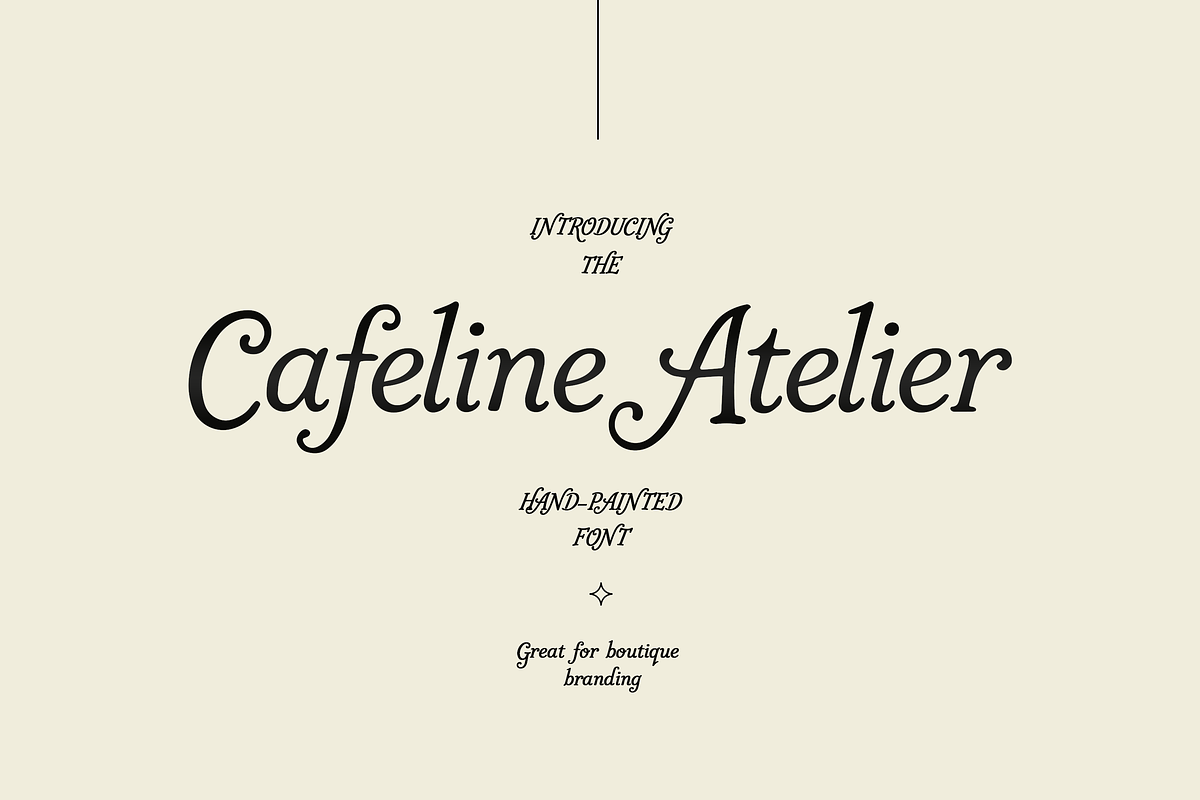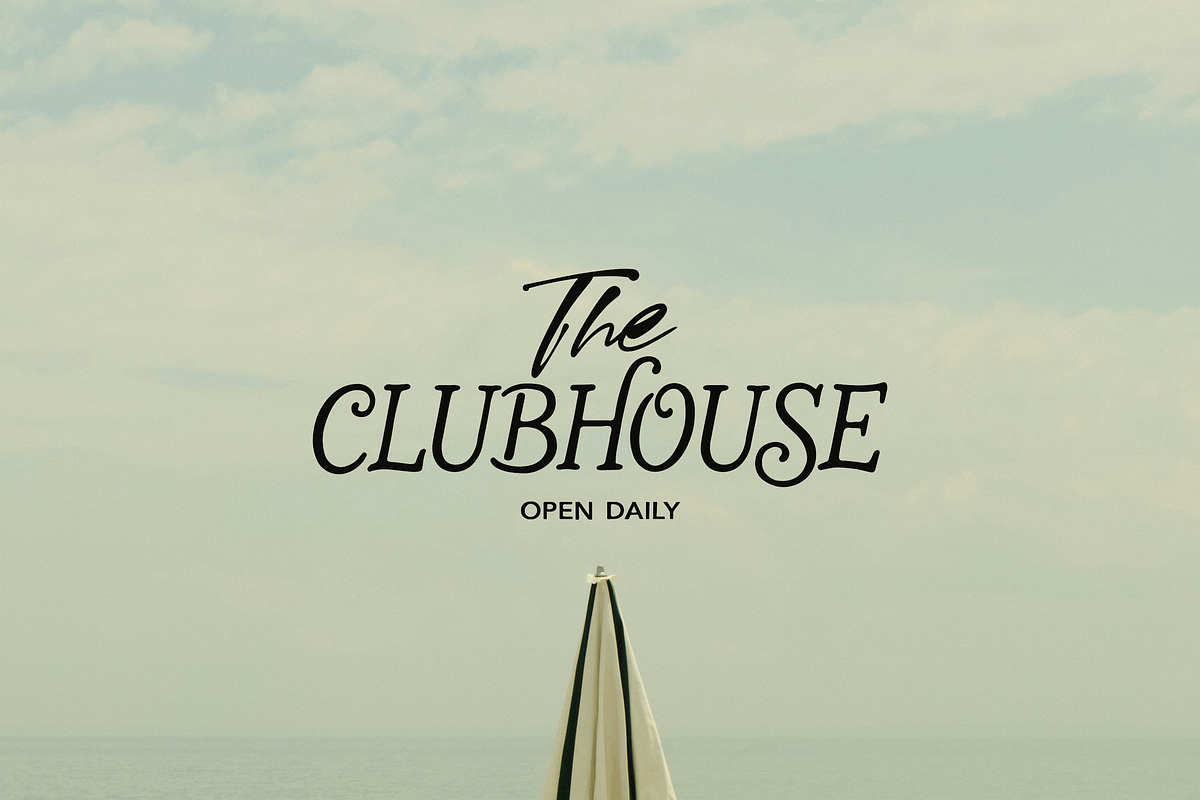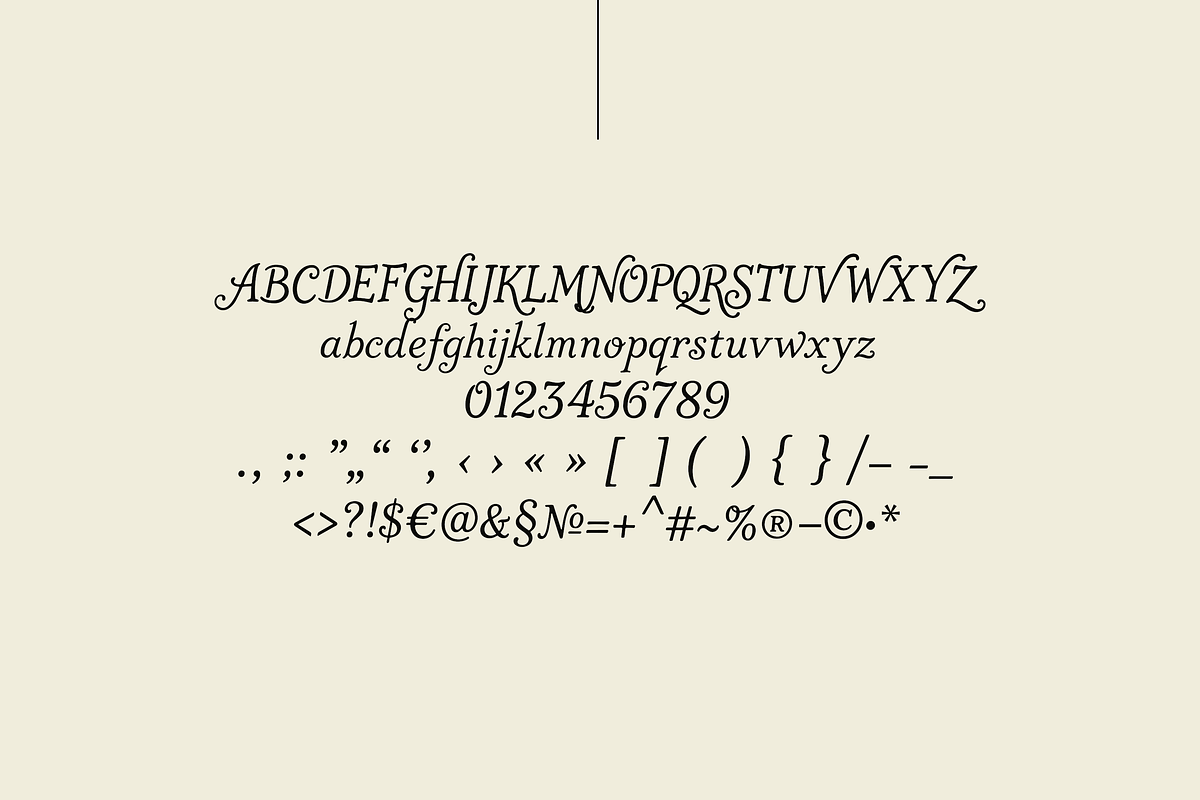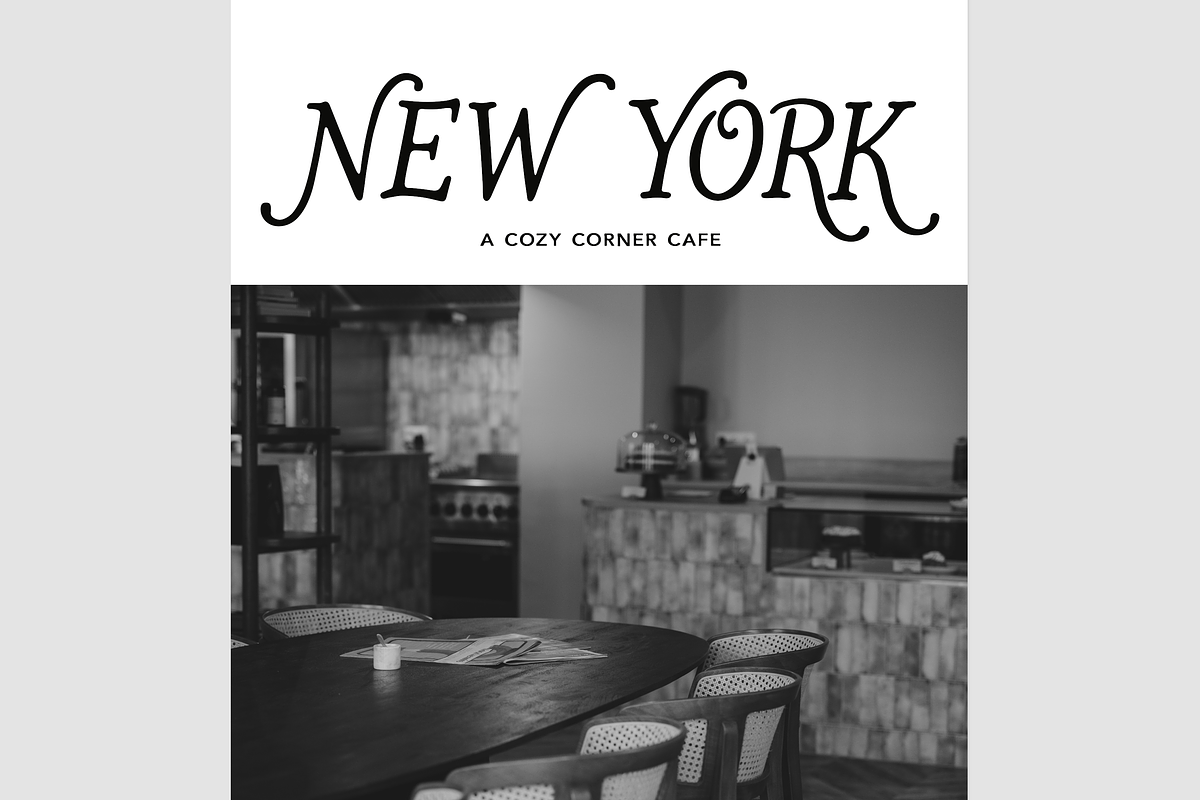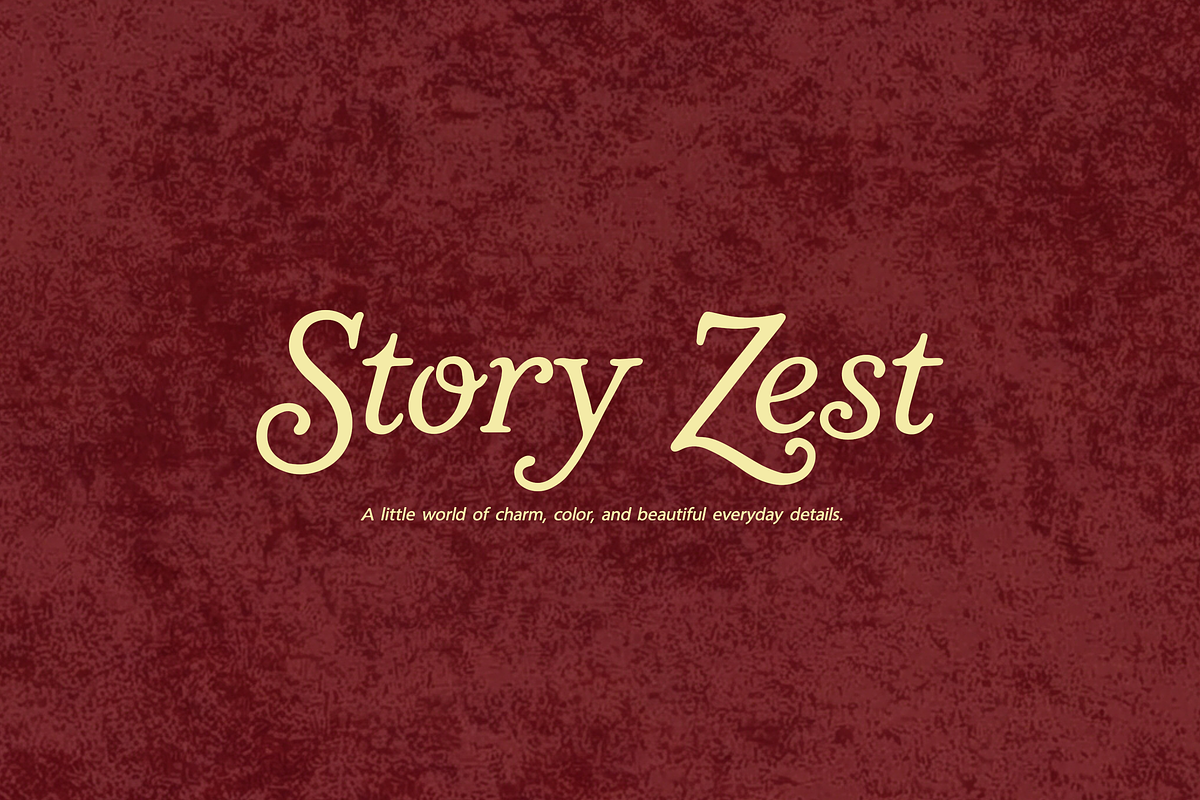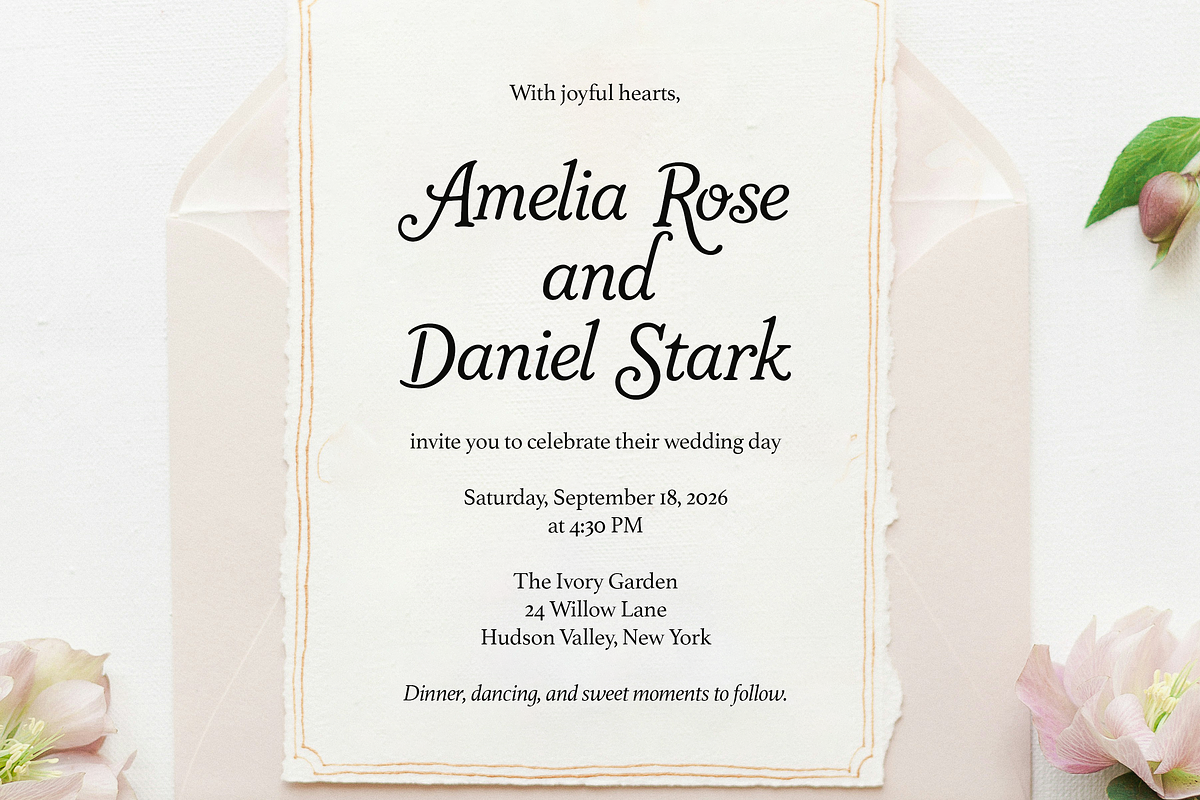
Cafeline Atelier Font
Cafeline Atelier is a whimsical vintage display font inspired by hand-painted café signs, charming bakery storefronts, and old European lettering. With elegant curves, playful details, and a nostalgic handmade feel, this font brings warmth, character, and boutique charm to any creative project.
Perfect for branding, logos, packaging, invitations, menus, posters, social media, book covers, labels, and storybook-inspired designs, Cafeline Atelier adds a romantic old-world touch while staying artistic and readable.